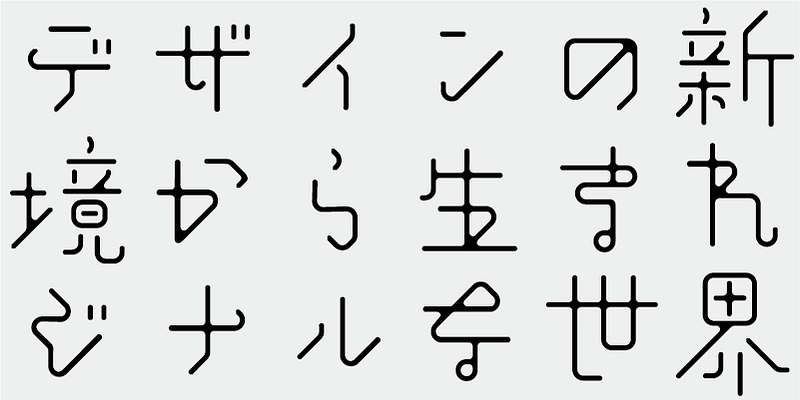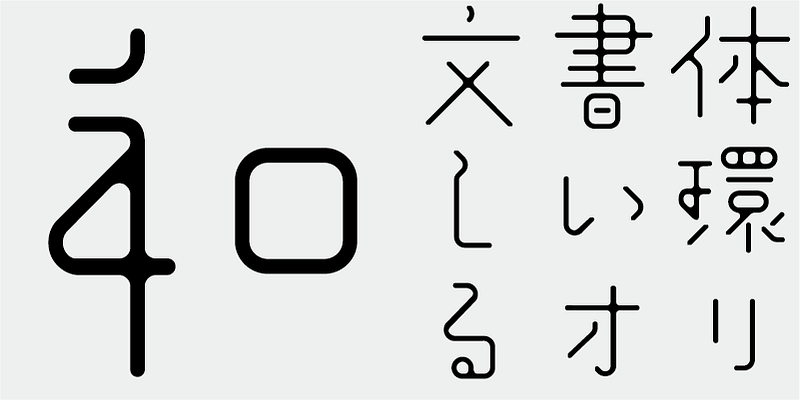
This typeface has a uniquely comfortable “balance”, though it includes imbalanced elements. The structures of the letter-forms have horizontal, vertical and diagonal strokes with an ink-bleeding effect that makes the the crossings of strokes darker. This gives the characters a cute and light-hearted look. This is a display typeface suitable for titles of movies and TV programs, packages, and sales copies for advertisement, etc.